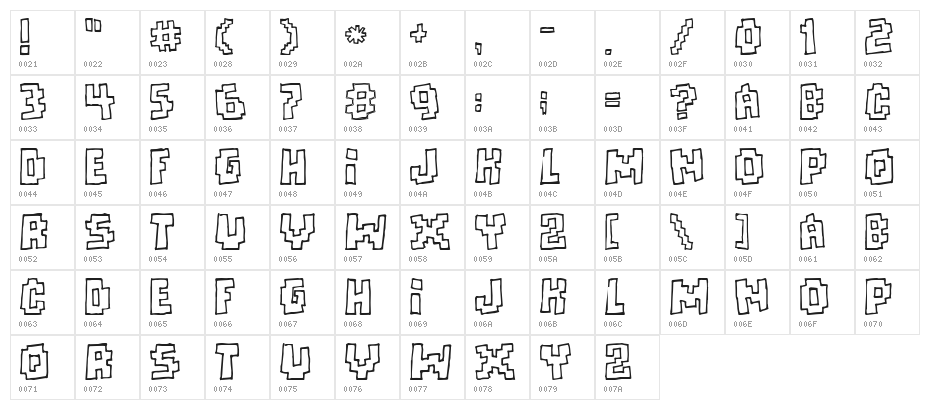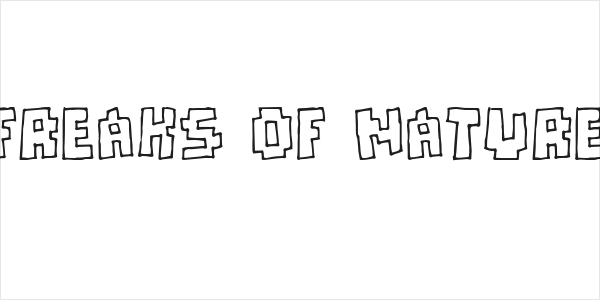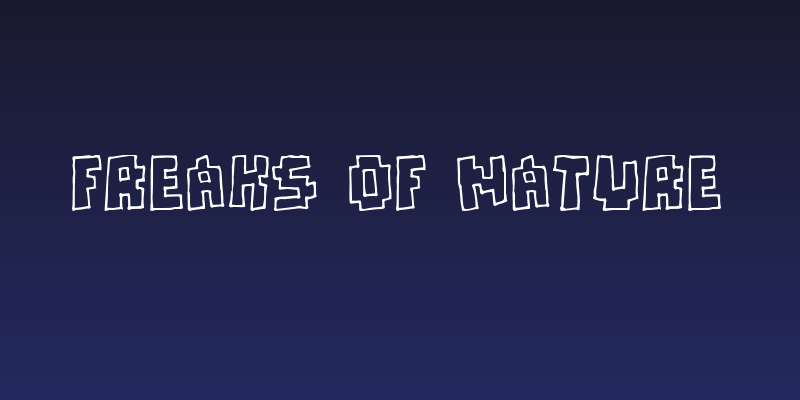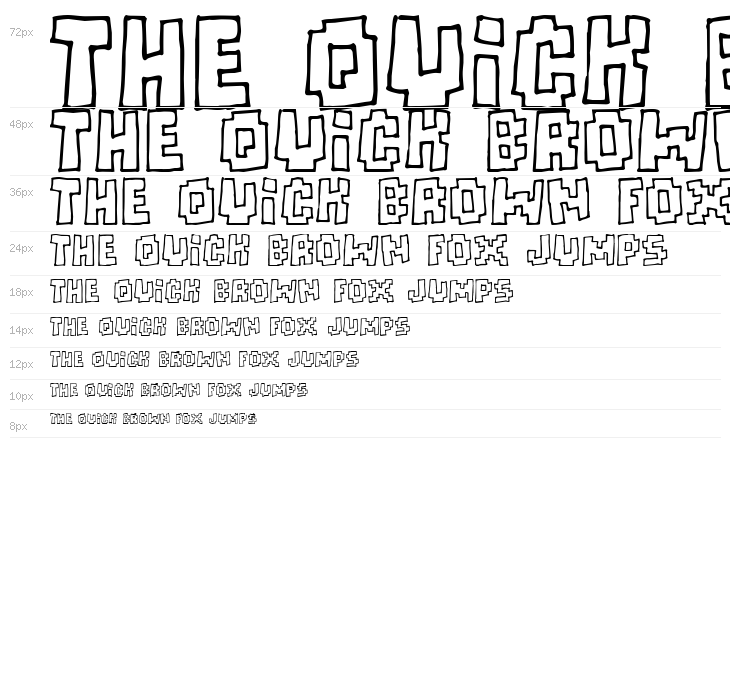
Freaks of Nature Font
Freaks of Nature Description
This font features a bold, playful design with a hand-drawn, irregular outline that gives it a quirky and fun appearance. The characters are blocky and have a pixelated, retro video game aesthetic. The uppercase and lowercase letters share a similar style, maintaining a consistent, chunky look throughout. Numbers and special characters follow the same design principles, ensuring uniformity across the font. The thick outlines and irregular shapes make it stand out, ideal for creative and unconventional projects.
| Overall Style | Playful, Retro, Quirky |
| Use Case | Headlines, Posters, Logos |
| Proposed Projects | Ideal for video game designs, children's book covers, posters, and any project requiring a fun and quirky aesthetic. |